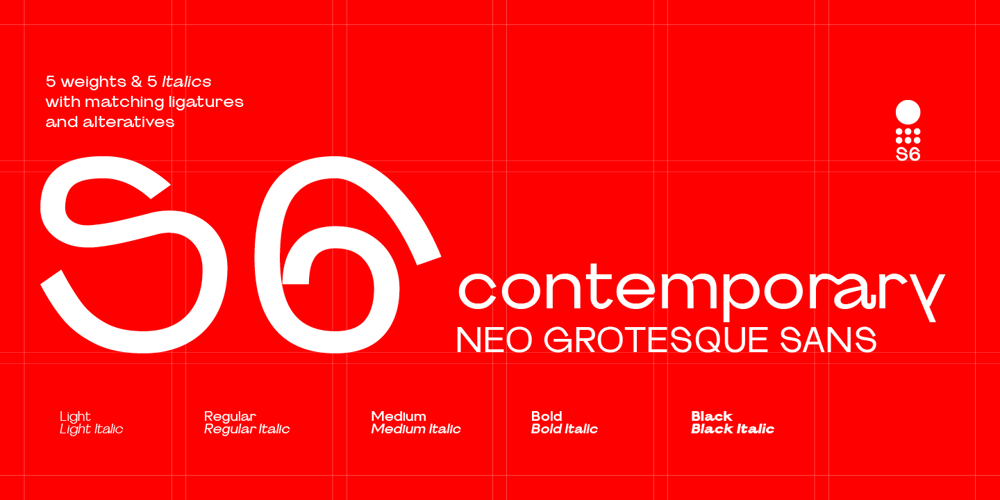
S6 Sans Font Family was designed by Paul Henry Robb and published by S6 Foundry. S6 Sans contains 10 styles and family package options. S6 sans is a contemporary neo-grotesque sans serif typeface with strong stylistic geometric contrasts. Its distinctive wide-open stance was designed to give the right visual consistency for branding and communications.